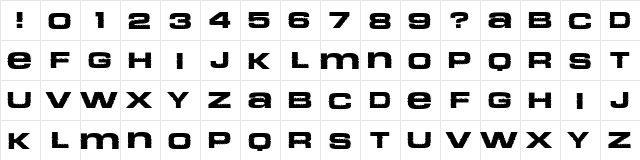
Cosmas Regular
Design Context for Cosmas Typeface
Cosmas offers clean, dependable letterforms without strong stylistic allegiance, making it a practical choice for designers who need flexibility.
Pro Tip: Use Cosmas in both headline and body roles to test its range before committing to a single application.